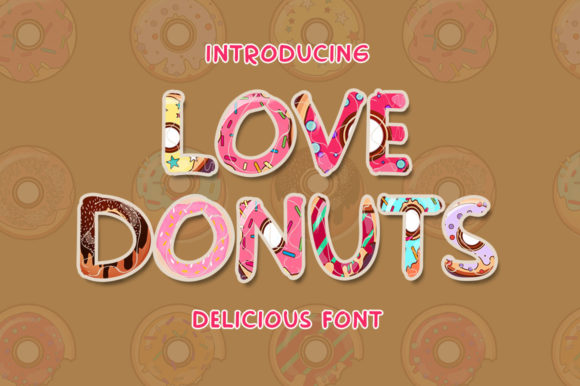
Embark on a typographic journey with Love Donuts font, a delightful creation by Mr.Soon Design. This decorative font family exudes charm and sweetness, promising to elevate your designs with a touch of joy and elegance.
Step into a world where fonts are not just letters, but expressions of creativity and emotions. Love Donuts is a font that speaks to your heart, capturing the essence of love, happiness, and celebration. Its carefully crafted glyphs dance across the page, evoking a sense of nostalgia and warmth.
Envision your invitations, greeting cards, and social media posts adorned with the playful curves and bubbly serifs of Love Donuts. Its versatility knows no bounds, lending itself effortlessly to branding, packaging, and web design. Let your imagination soar as you explore the endless possibilities of this captivating font.
With Love Donuts, your designs will radiate a timeless elegance, attracting attention and leaving a lasting impression. Whether you're creating wedding invitations, birthday cards, or promotional flyers, this font will add an unforgettable touch of sweetness and charm.
Unleash your creativity and let Love Donuts infuse your projects with a burst of joy. Its playful spirit will captivate your audience, leaving them smiling with delight. Let this font be your secret weapon to create designs that resonate with hearts and inspire imaginations.